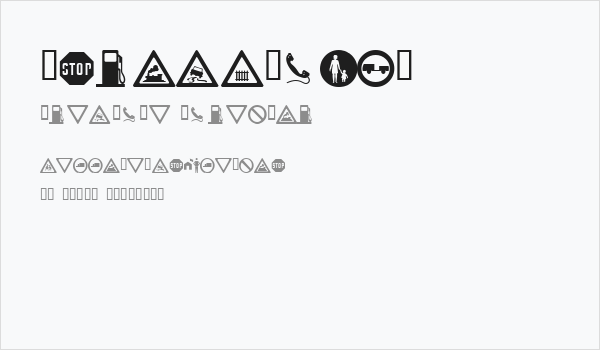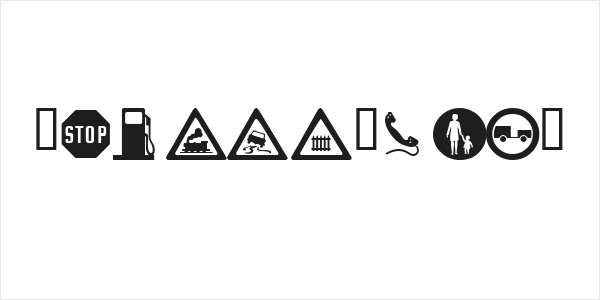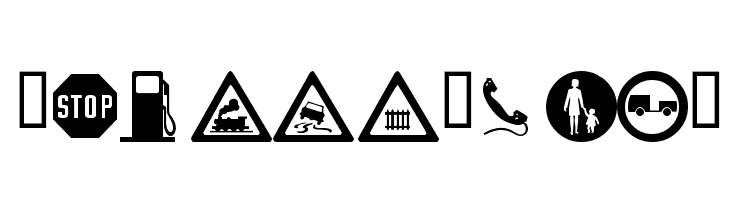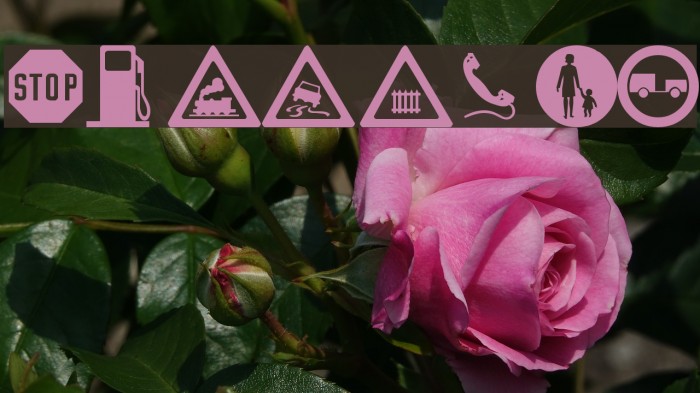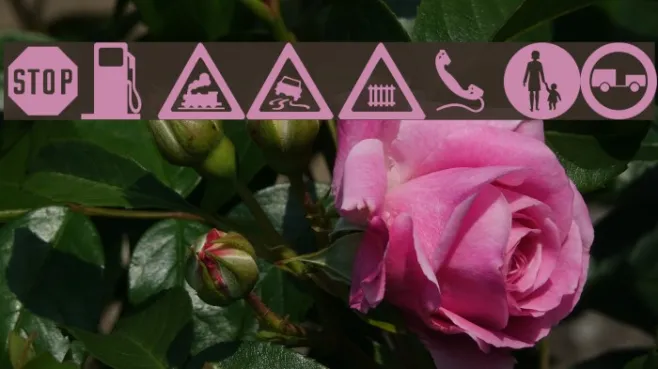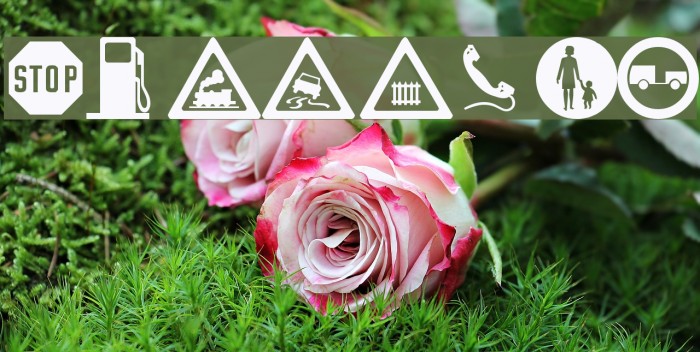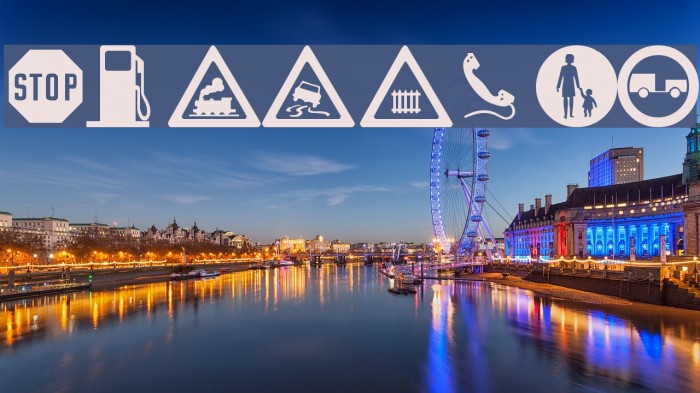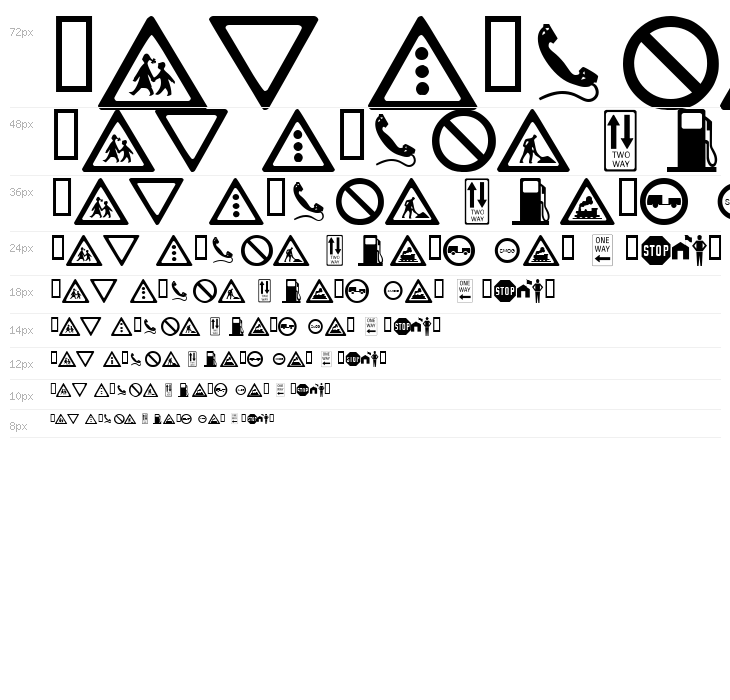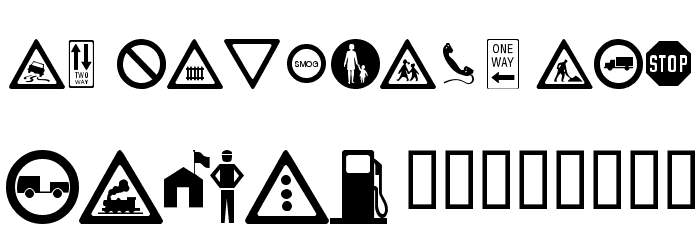
wmroadsigns Font
wmroadsigns Description
A collection of pictogram-style road sign symbols, featuring bold, simplified shapes and clear iconography representing various traffic and road-related warnings and instructions.
| Overall Style | Functional, Modern, Pictographic |
| Use Case | Icons, Signage, Instructional graphics, Maps |
| Proposed Projects | Wayfinding systems, educational materials, transportation apps, signage design, infographics. |